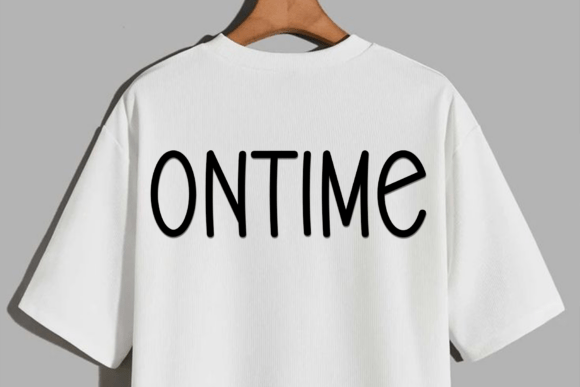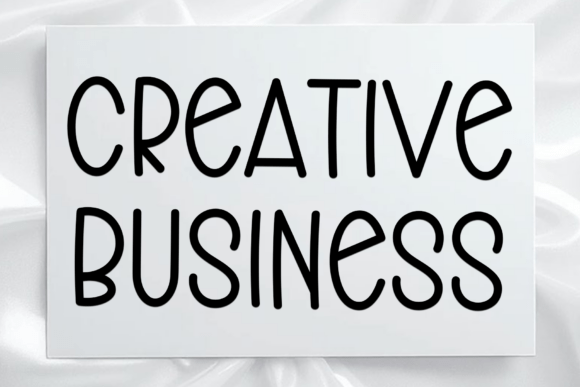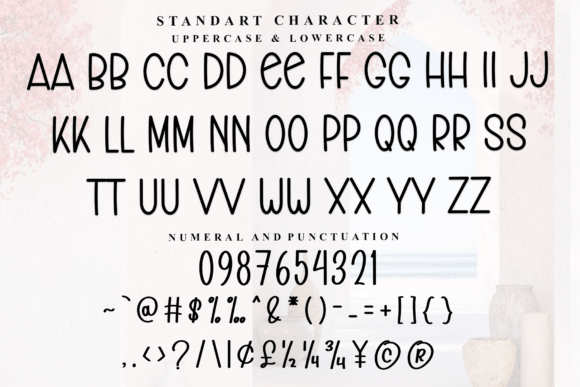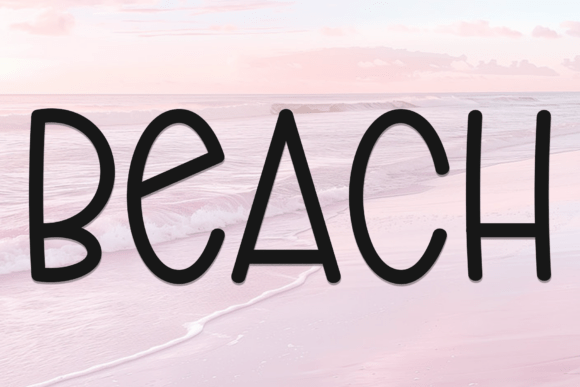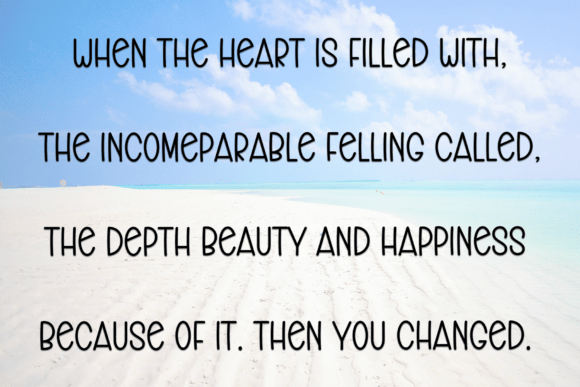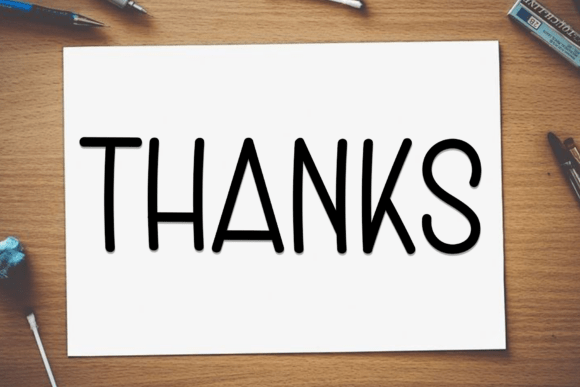
Introducing Funny Writing Font: Elevate Your Designs with a Unique Touch
Are you tired of using the same old fonts in your designs? Look no further! Funny Writing Font is a beautiful and eye-catching font that is sure to take your creative projects to the next level. Designed with a soft, unique touch, this font is perfect for designers, crafters, and artists looking to add a special character to their work.
The Distinctive Features of Funny Writing Font
What sets Funny Writing Font apart from other fonts is its distinctive strokes, which give it a special character that makes it meaningful and versatile for future use. The font’s unique design makes it perfect for a wide range of projects, from design and crafts to other creative works. Whether you’re working on a logo, brochure, or social media graphics, Funny Writing Font is sure to make your designs stand out.
A World of Creative Possibilities
As a designer or crafter, you know how important it is to have a font that can keep up with your creative vision. Funny Writing Font is designed to be versatile and easy to use, making it perfect for a wide range of artistic and creative fields. Whether you’re working on a DIY project, creating social media graphics, or designing a logo, this font is sure to enhance your designs and make them appealing to a wide range of audiences.
What Makes Funny Writing Font So Special?
So, what makes Funny Writing Font so special? Here are just a few reasons why designers and crafters love this font:
- Unique Design: Funny Writing Font has a distinctive design that sets it apart from other fonts.
- Versatile: The font is perfect for a wide range of projects, from design and crafts to other creative works.
- Wide Range of Characters: The font comes with a wide range of characters, making it perfect for various design projects.
How to Use Funny Writing Font in Your Designs
Using Funny Writing Font in your designs is easy! Here are a few tips to get you started:
- Pair it with Other Fonts: Funny Writing Font pairs well with other fonts, making it perfect for use in combination with other typography.
- Use it for Headings and Titles: The font’s unique design makes it perfect for use in headings and titles.
- Add it to Your Digital Designs: Funny Writing Font is perfect for use in digital designs, from social media graphics to website headers.
- Use it for Print Materials: The font is also perfect for use in print materials, from brochures to business cards.
In conclusion, Funny Writing Font is a beautiful and eye-catching font that is sure to elevate your designs to the next level. With its unique design, versatility, and wide range of characters, this font is perfect for designers, crafters, and artists looking to add a special character to their work. Whether you’re working on a DIY project, creating social media graphics, or designing a logo, Funny Writing Font is sure to enhance your designs and make them appealing to a wide range of audiences.